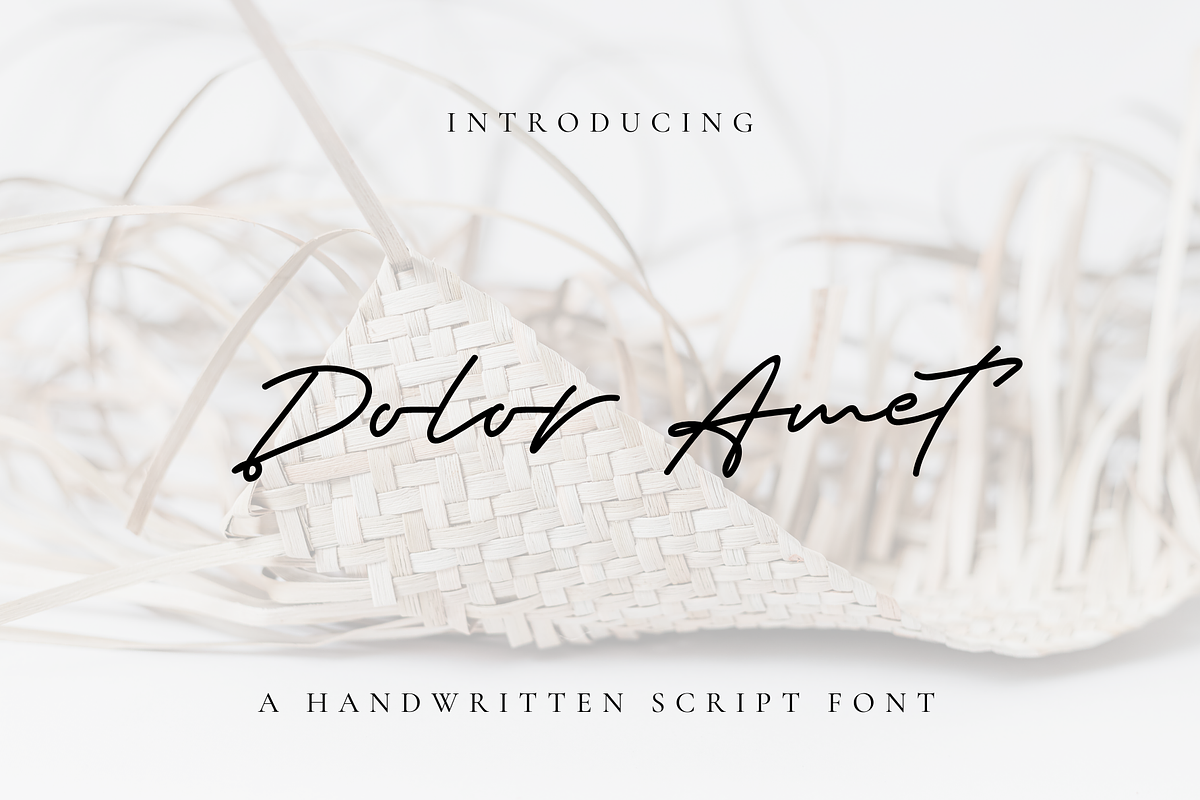
Dolor Amet Scripted Font Free Download is an elegant and stylish handwritten script typeface that combines fluid, flowing letterforms with a refined and classic design. Perfect for projects that need a touch of sophistication and personality, this font is ideal for wedding invitations, branding, logos, social media graphics, and creative stationery.
Dolor Amet Scripted Font Free Download adds a graceful, personal touch to your typography, making it ideal for romantic, luxurious, or artistic designs. Whether you're crafting a beautiful invitation, designing a custom logo, or creating a heartfelt message, Dolor Amet brings elegance and charm to your work. Download it today and add a sophisticated handwritten touch to your next design!